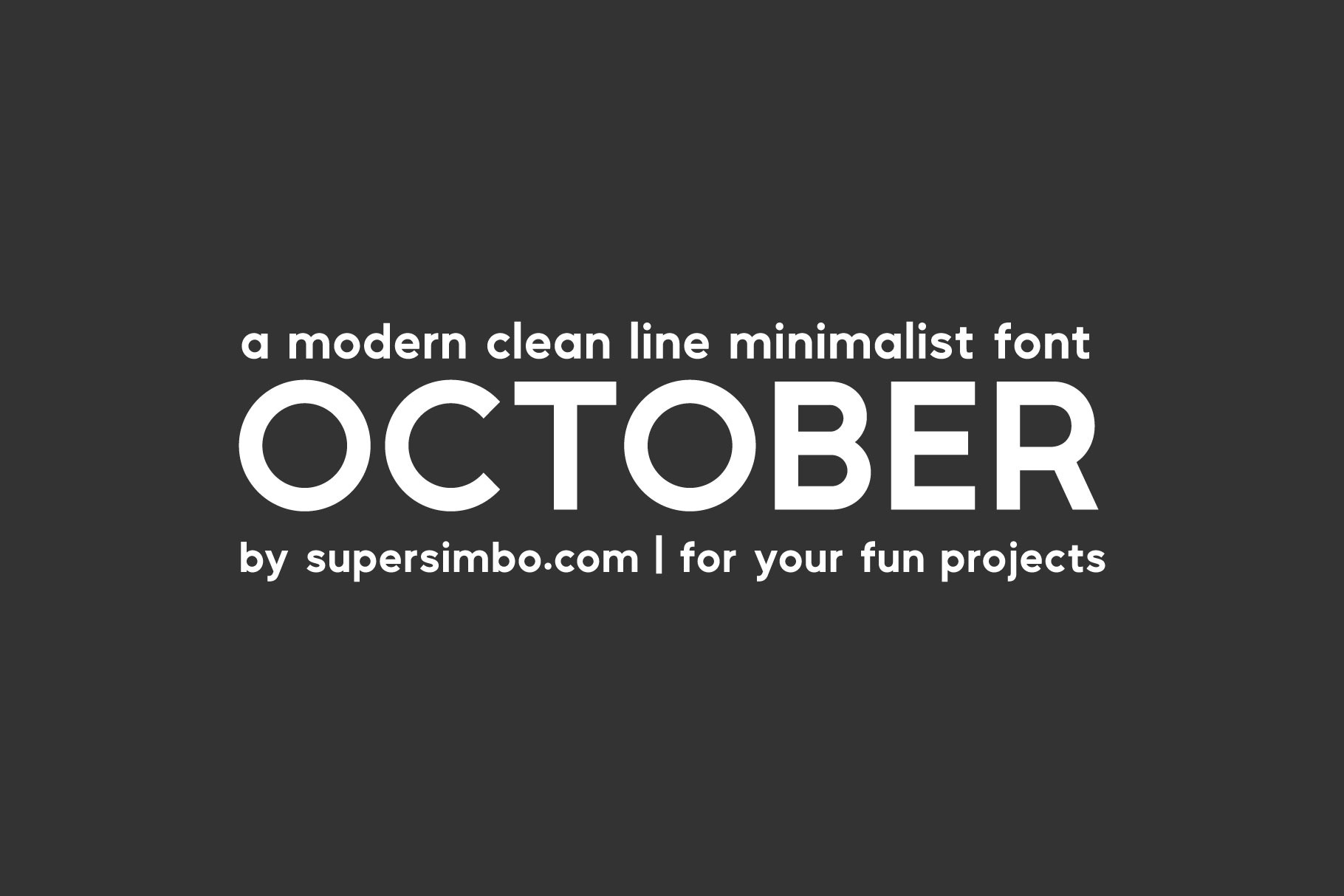
October | Modern Sans Serif Font
October is a modern sans serif font with clean minimalist lines and very nice simple curves, for your fun, urban, cool projects. Is it urban? I said it was, I'm not sure why. The kids would say "it hits hard." I think, maybe... there are more glyphs than I have ever made before and by f#@k they take a long time to get right. A learning curve one might say which is ironic because this font has some curves I really dig. Get it, use it, be urban and modern... be October.